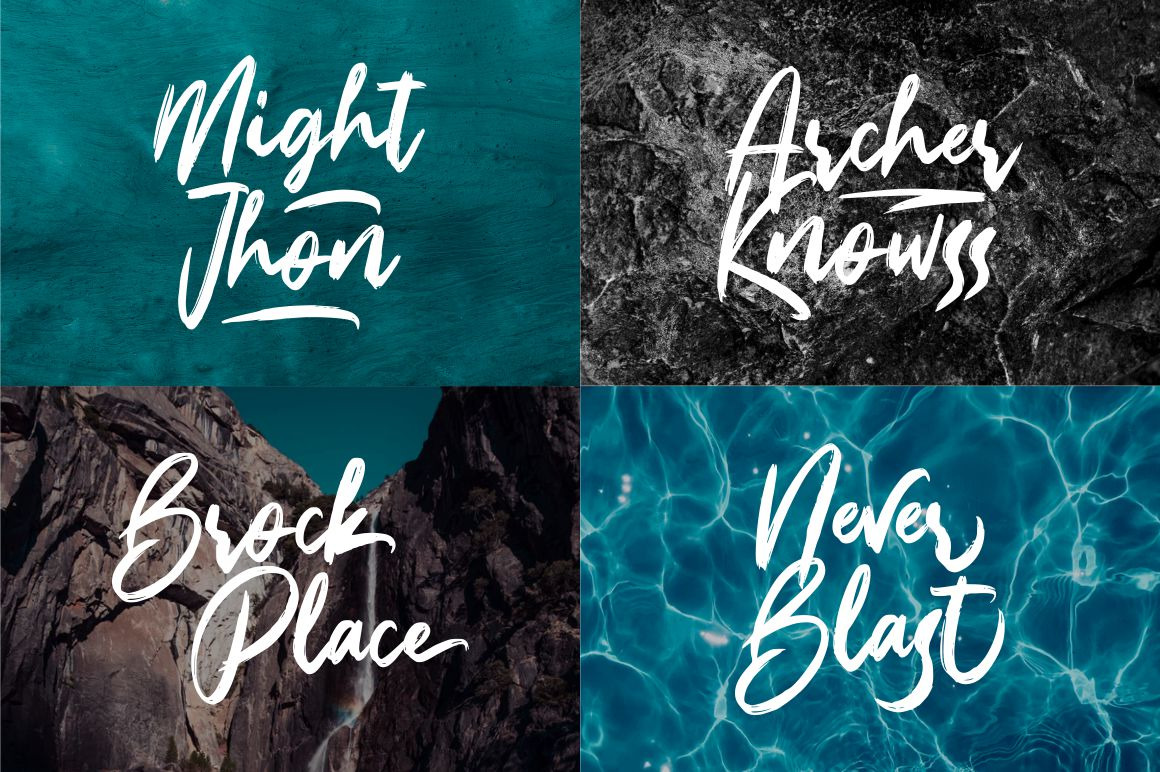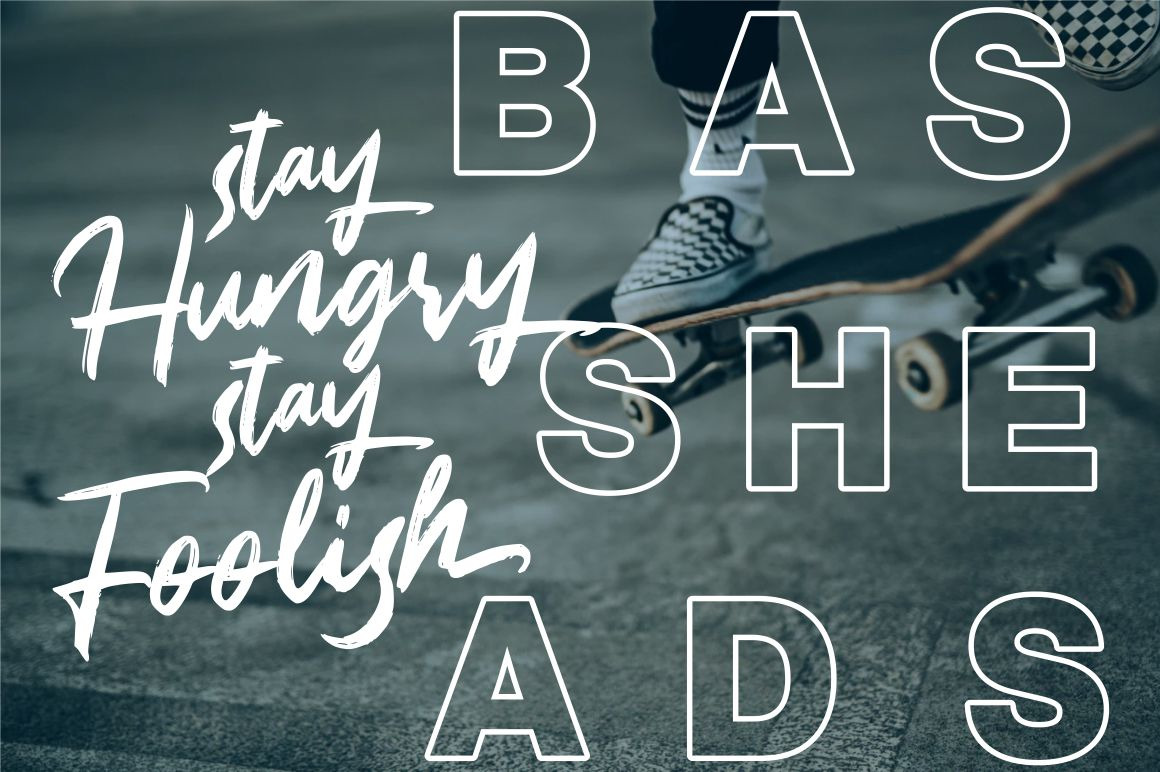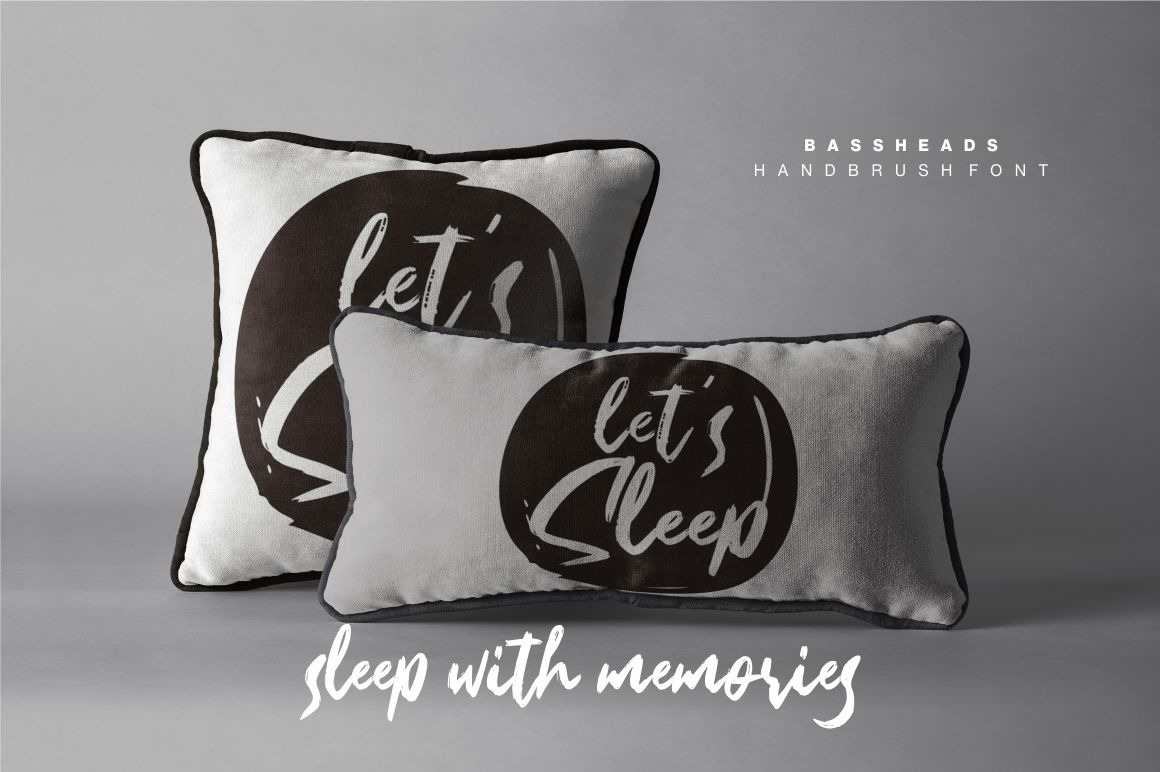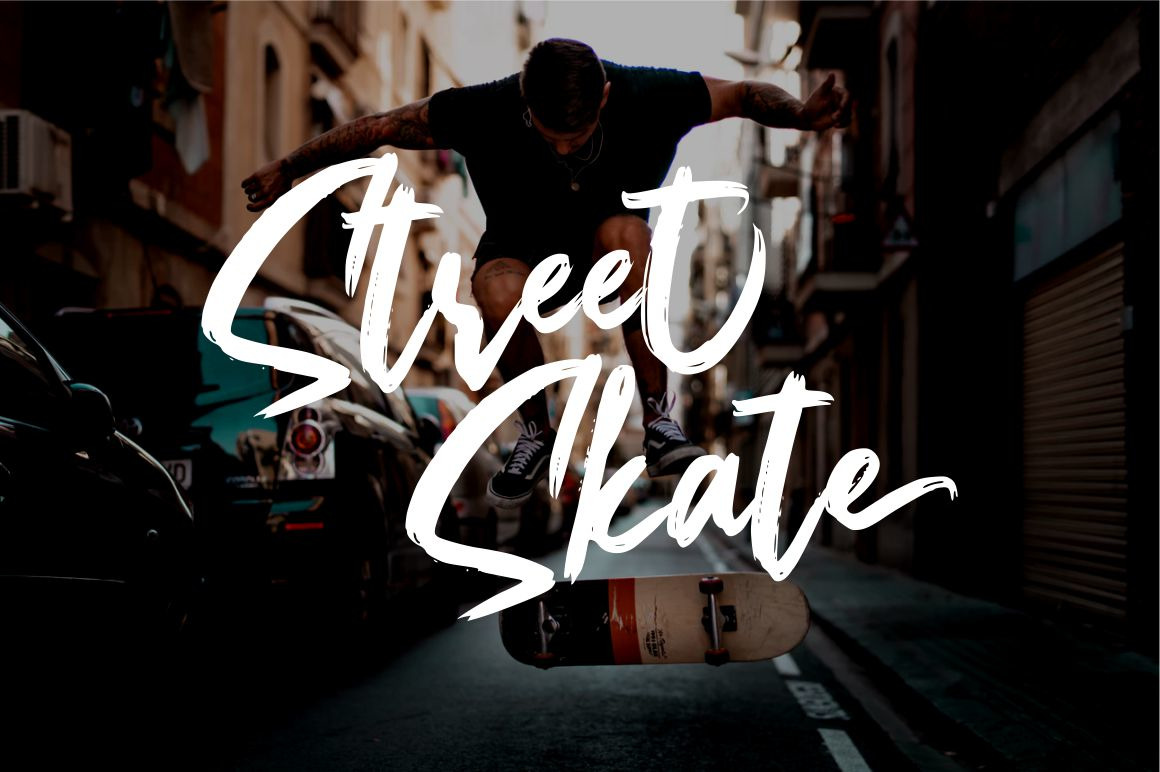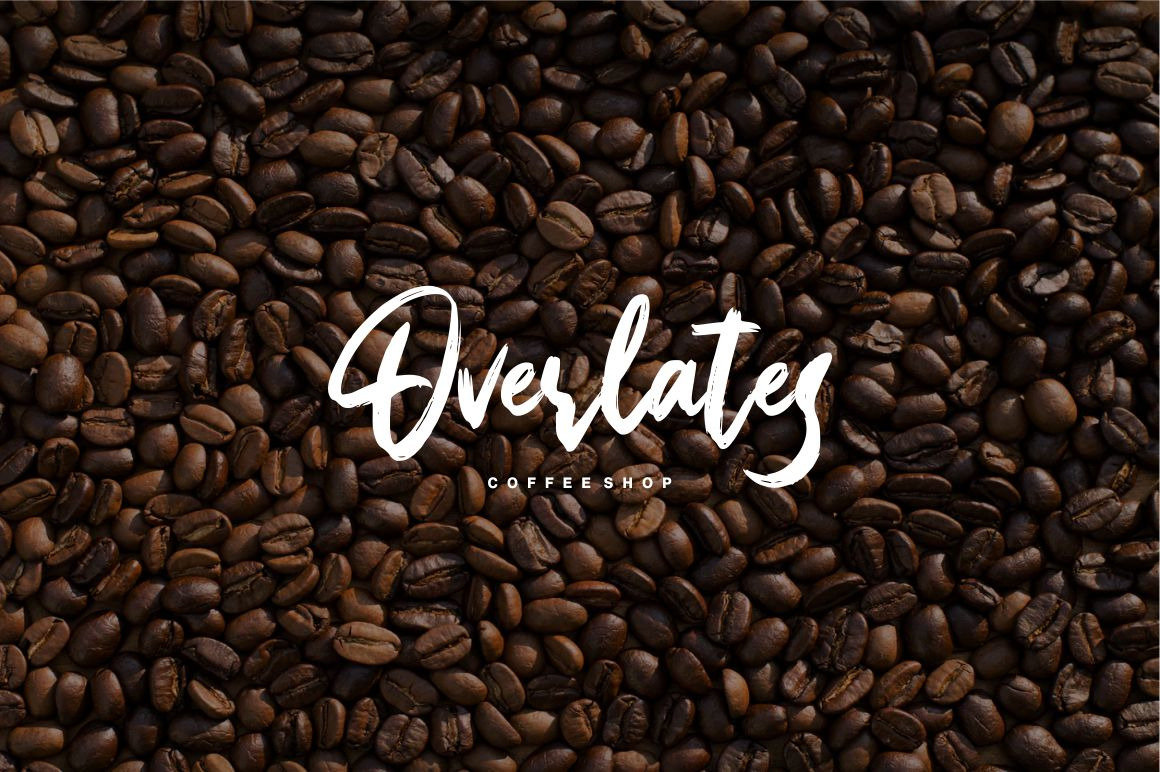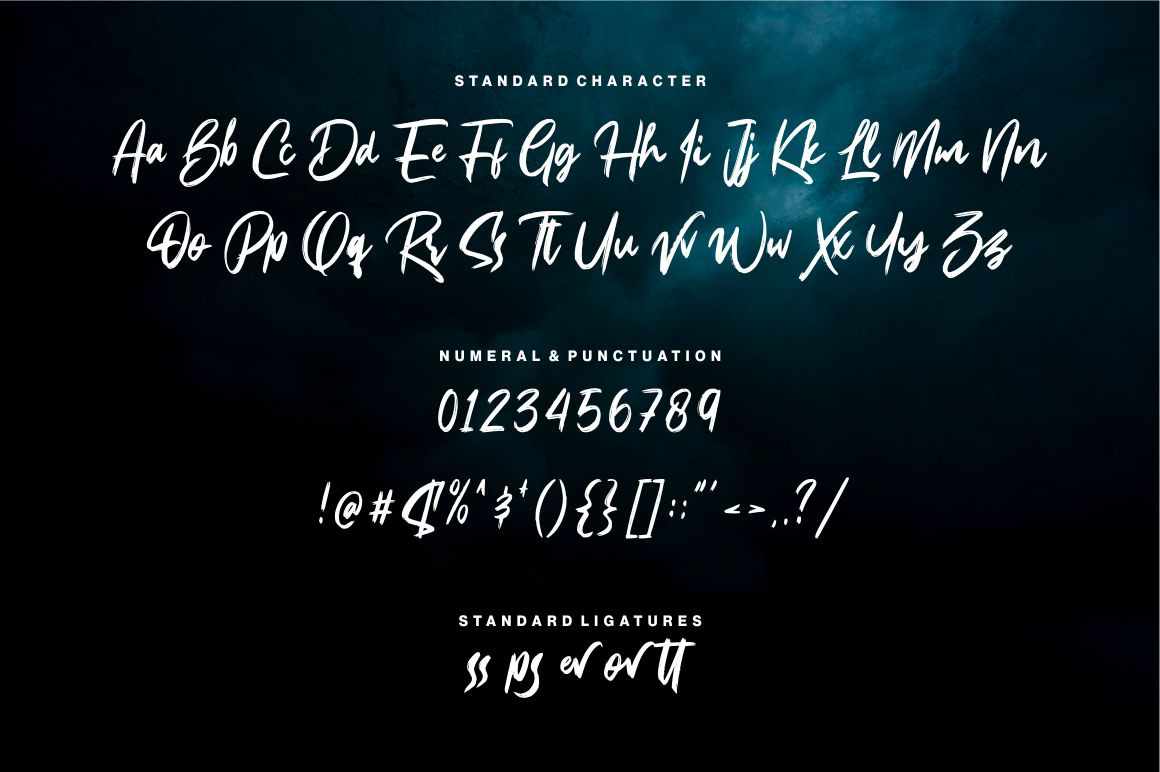
Bassheads - Handbrush Font
Introducing Bassheads - Handbrush Font
Bassheads combines attractive curves with a fresh urban edge; delivering a stylish script which is guaranteed to add an eye-catching appeal to your logo designs, brand imagery, handwritten quotes, product packaging, merchandise & social media posts
- EXTRA SWASH (46 Swashes)
- Detailed dry brush
- Versatile for poster, logotype, labels, book cover